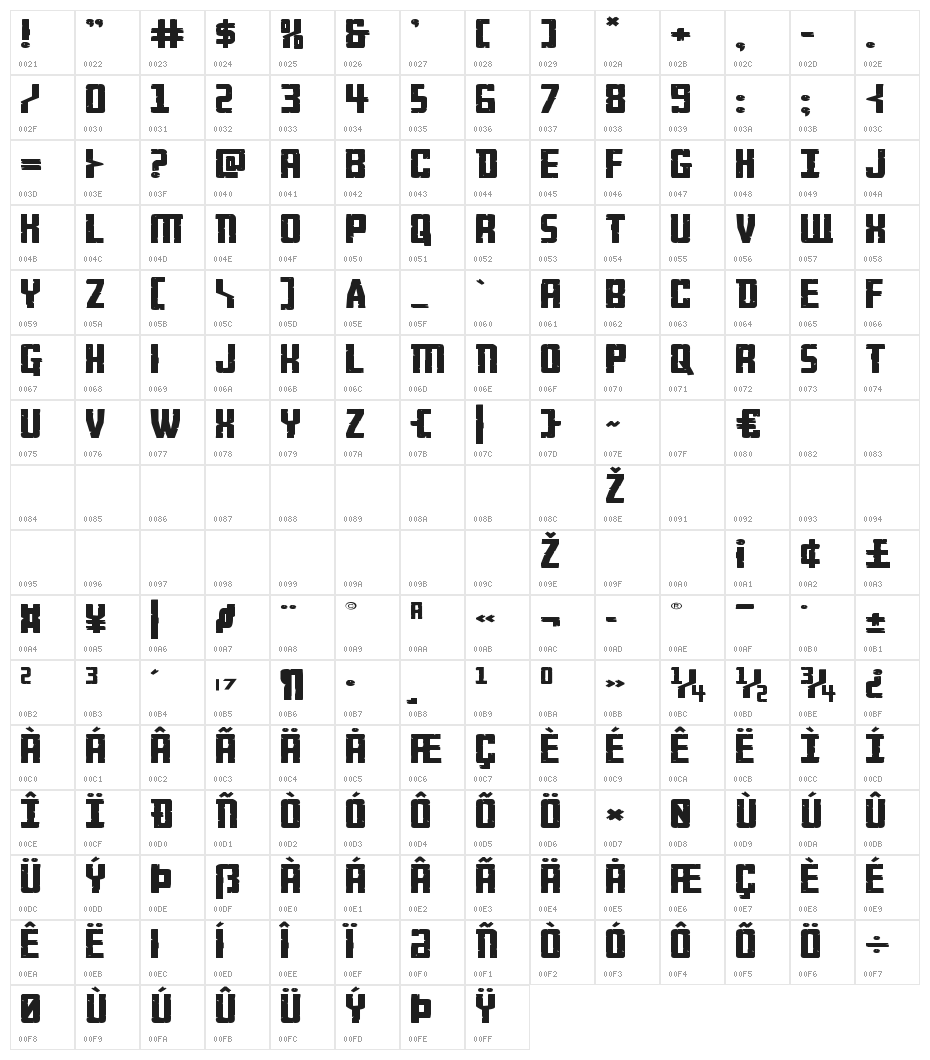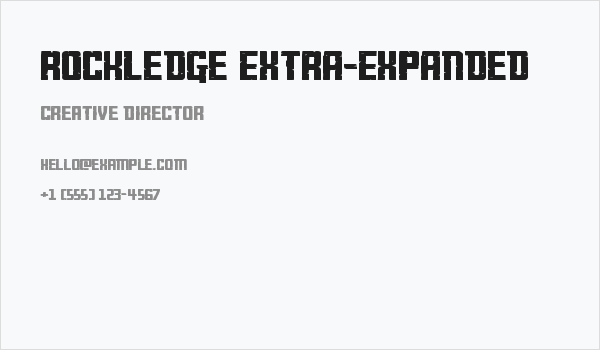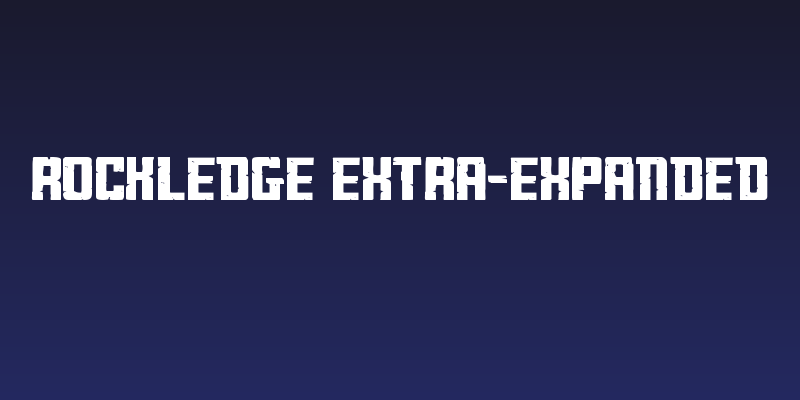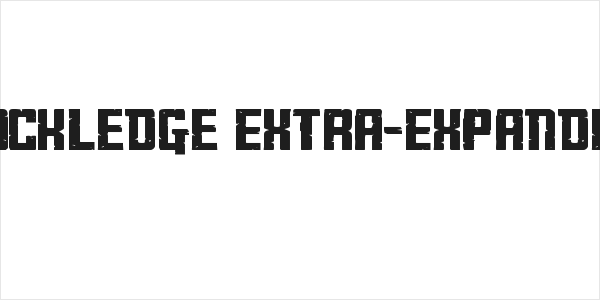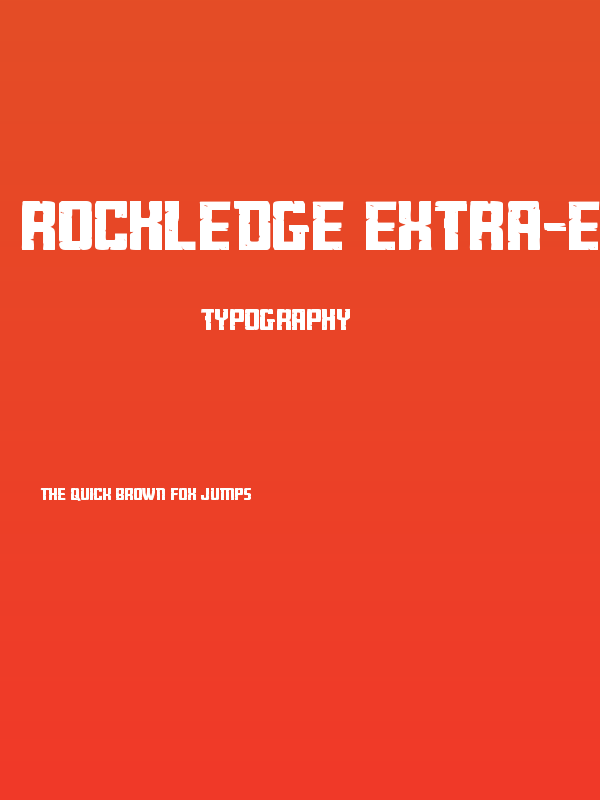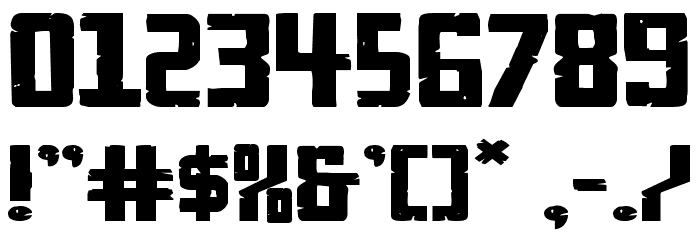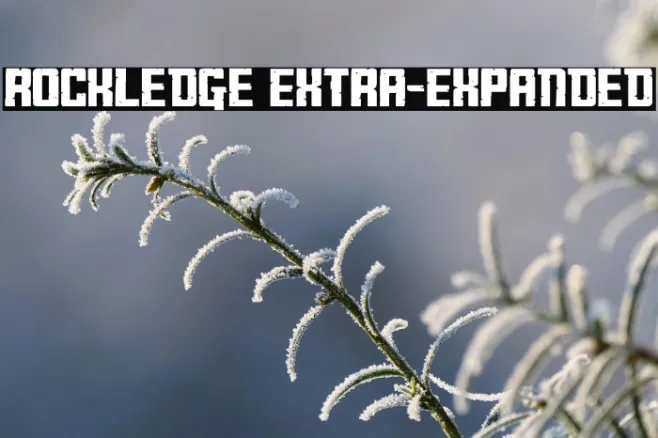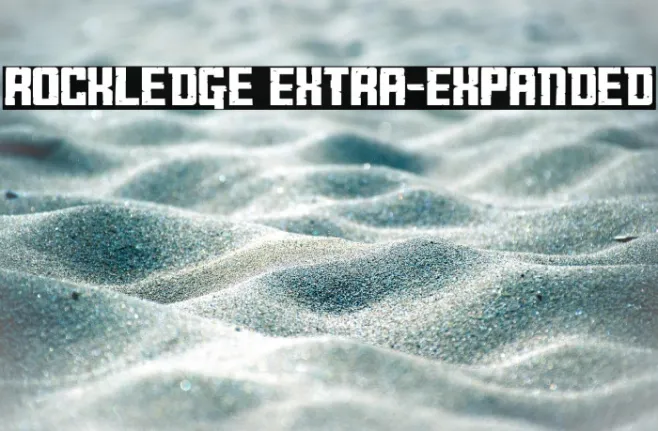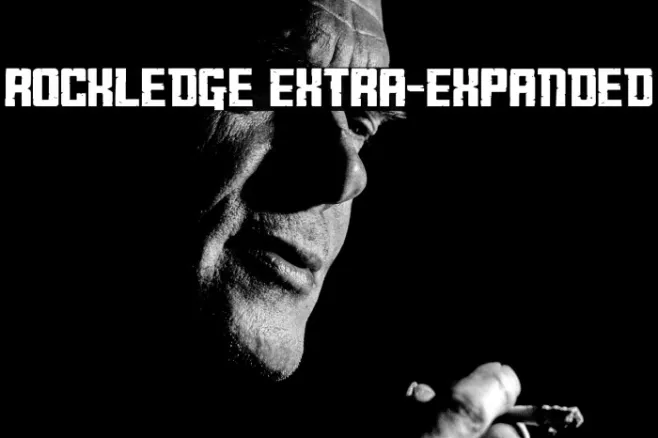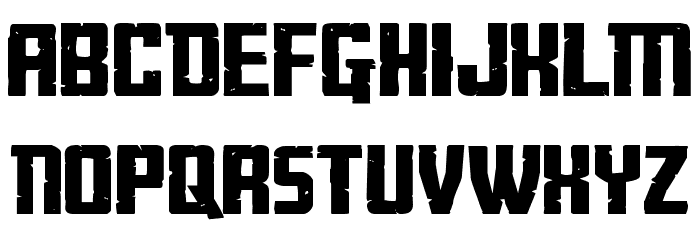
Rockledge Extra-Expanded Font
Rockledge Extra-Expanded Description
This font features a bold and rugged design with a distressed texture that gives it a vintage, worn-out appearance. The characters are extra expanded, providing a wide stance that enhances its boldness. The uppercase letters are uniform in height, with sharp, angular edges that contribute to its strong and impactful look. The numbers and special characters maintain the same distressed style, ensuring consistency across all glyphs. This font's unique style makes it suitable for projects that require a bold and eye-catching typeface with a touch of nostalgia.
| Proposed Projects | Ideal for posters, branding, headlines, and any design needing a strong, vintage aesthetic. |